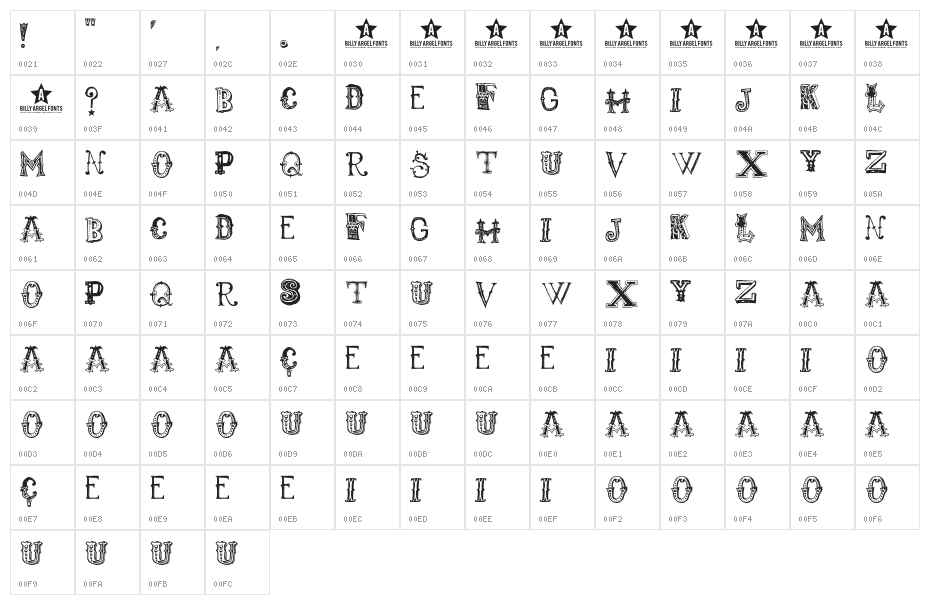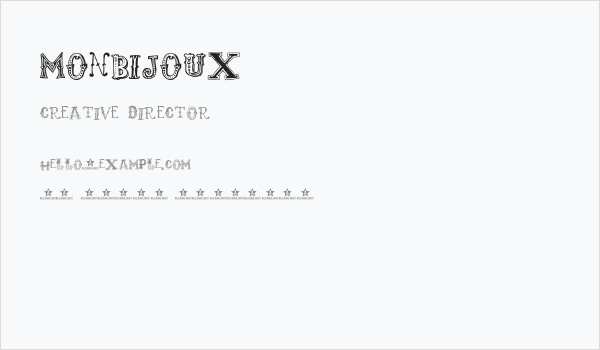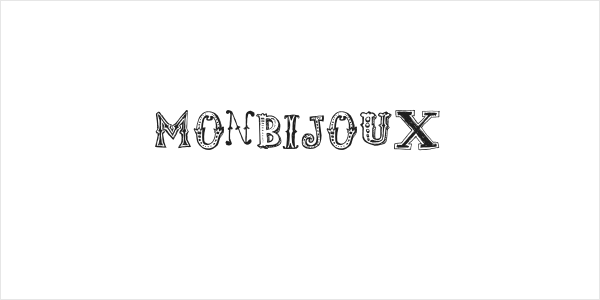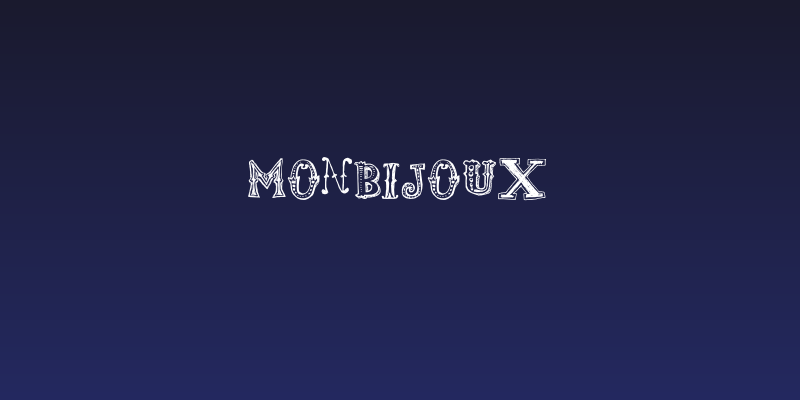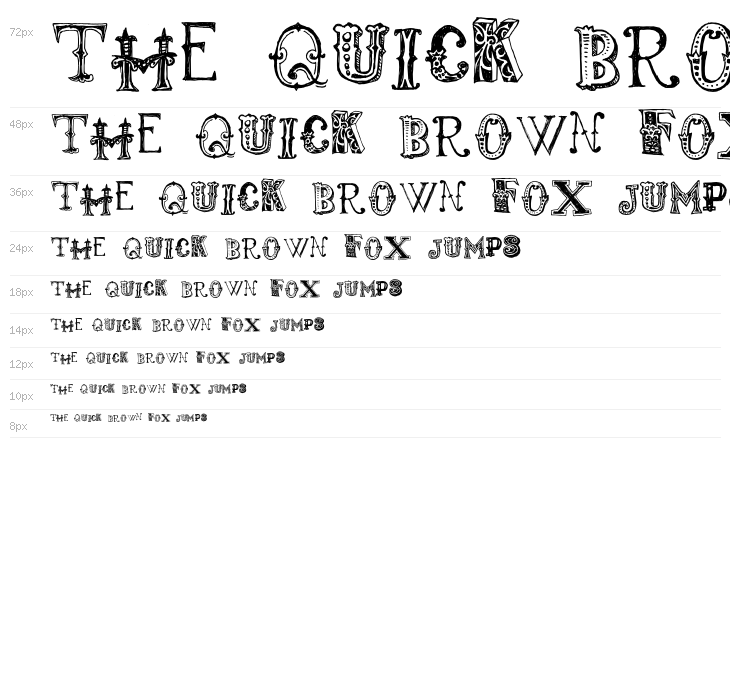
monbijoux Font
monbijoux Description
This font is a highly decorative and ornate typeface, featuring intricate patterns and embellishments within each character. The uppercase letters are particularly elaborate, with a mix of floral, geometric, and abstract motifs that give each letter a unique appearance. The style is reminiscent of vintage or Victorian design, making it suitable for projects that require a touch of elegance and complexity. The characters are bold and eye-catching, with a high level of detail that draws attention. This font is ideal for use in headlines, logos, or any design that aims to make a statement with its typography.
| Proposed Projects | Ideal for vintage posters, wedding invitations, branding for luxury products, and decorative book covers. |